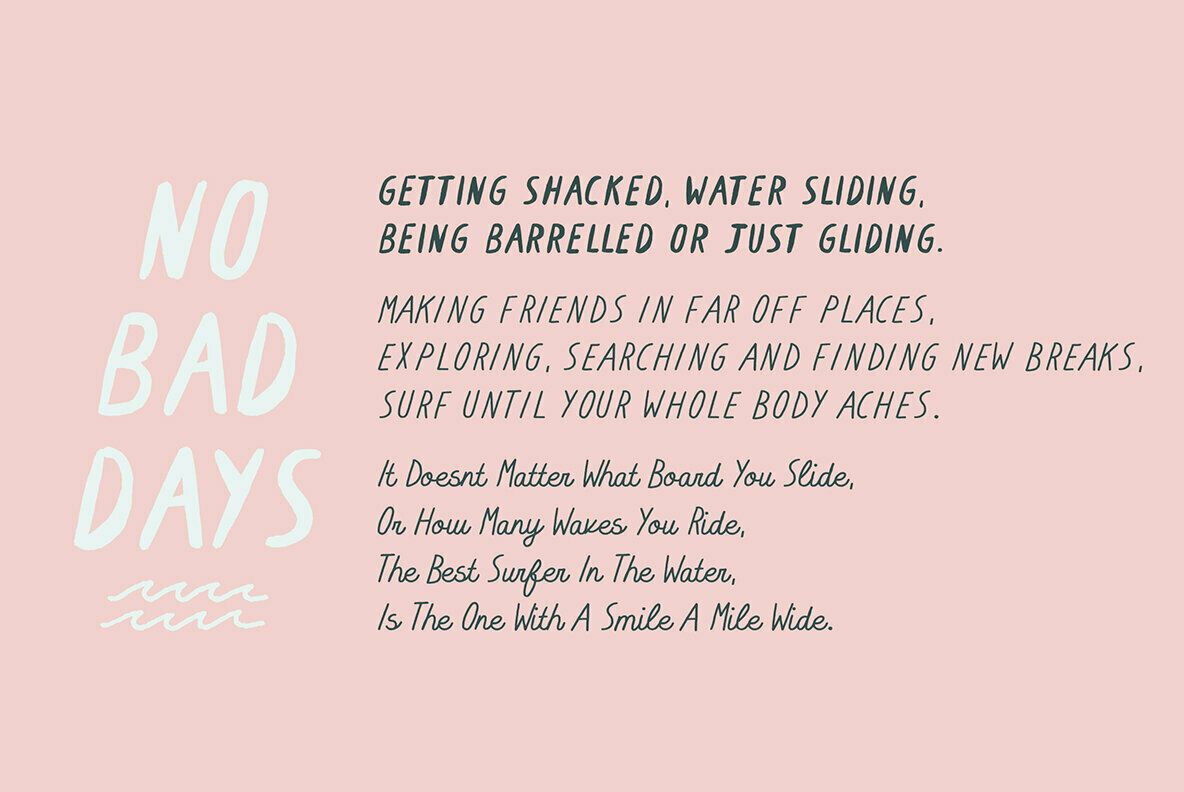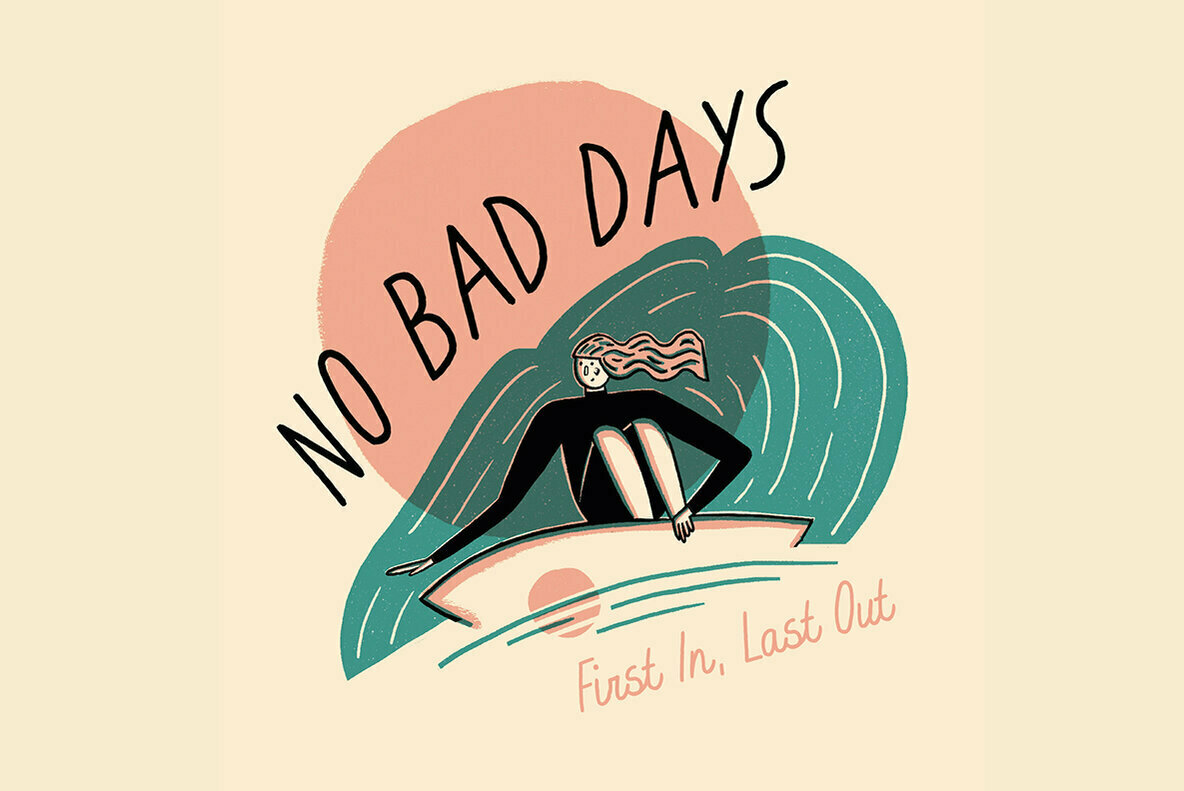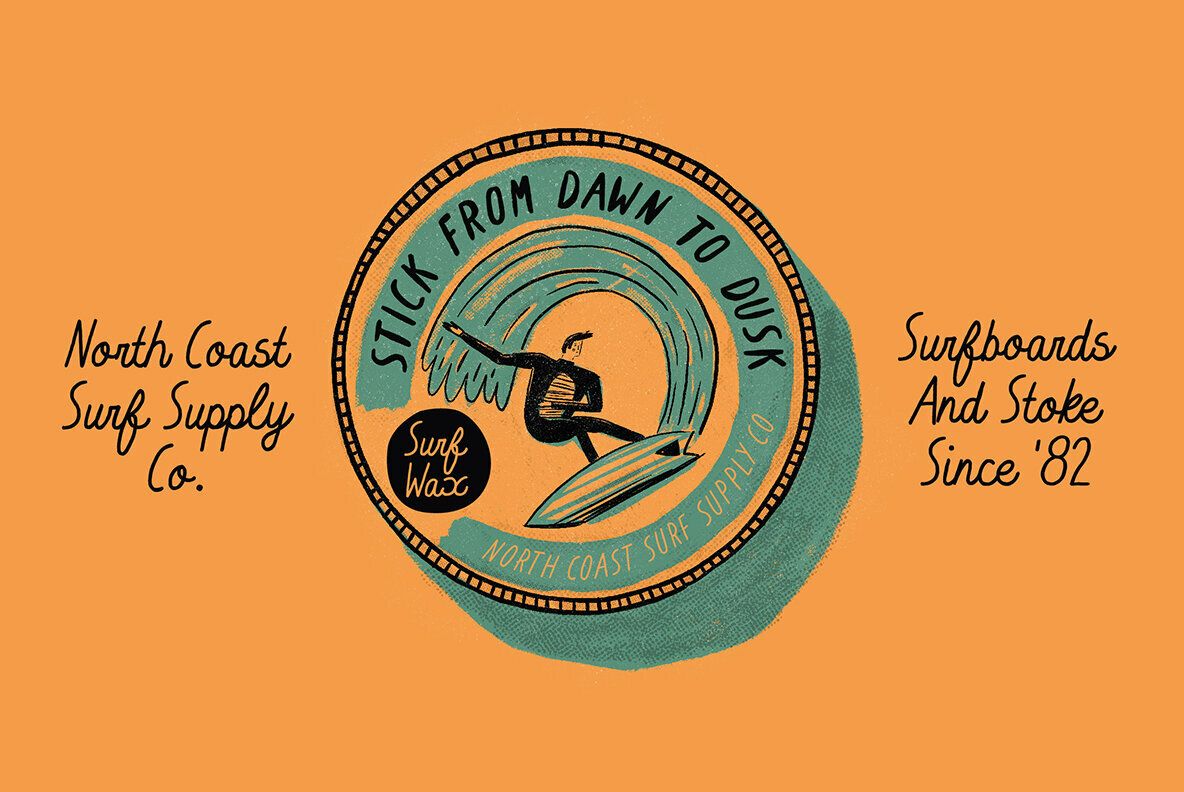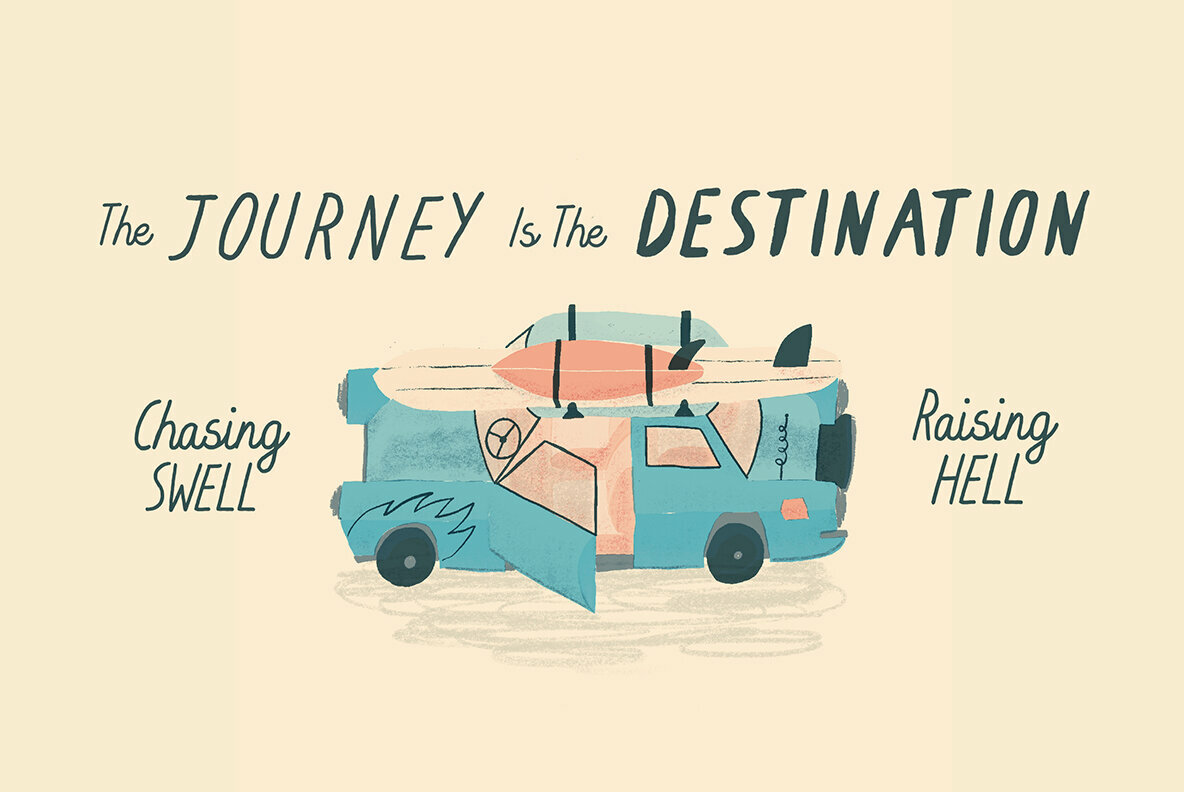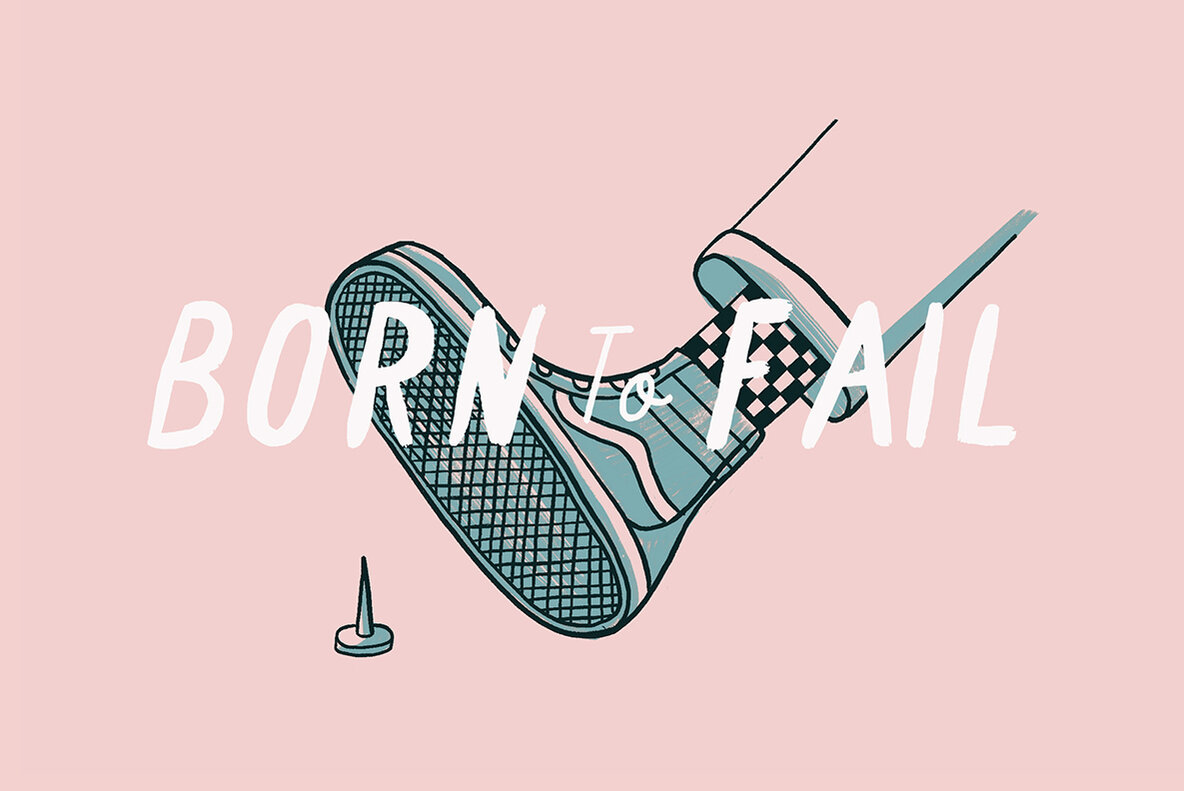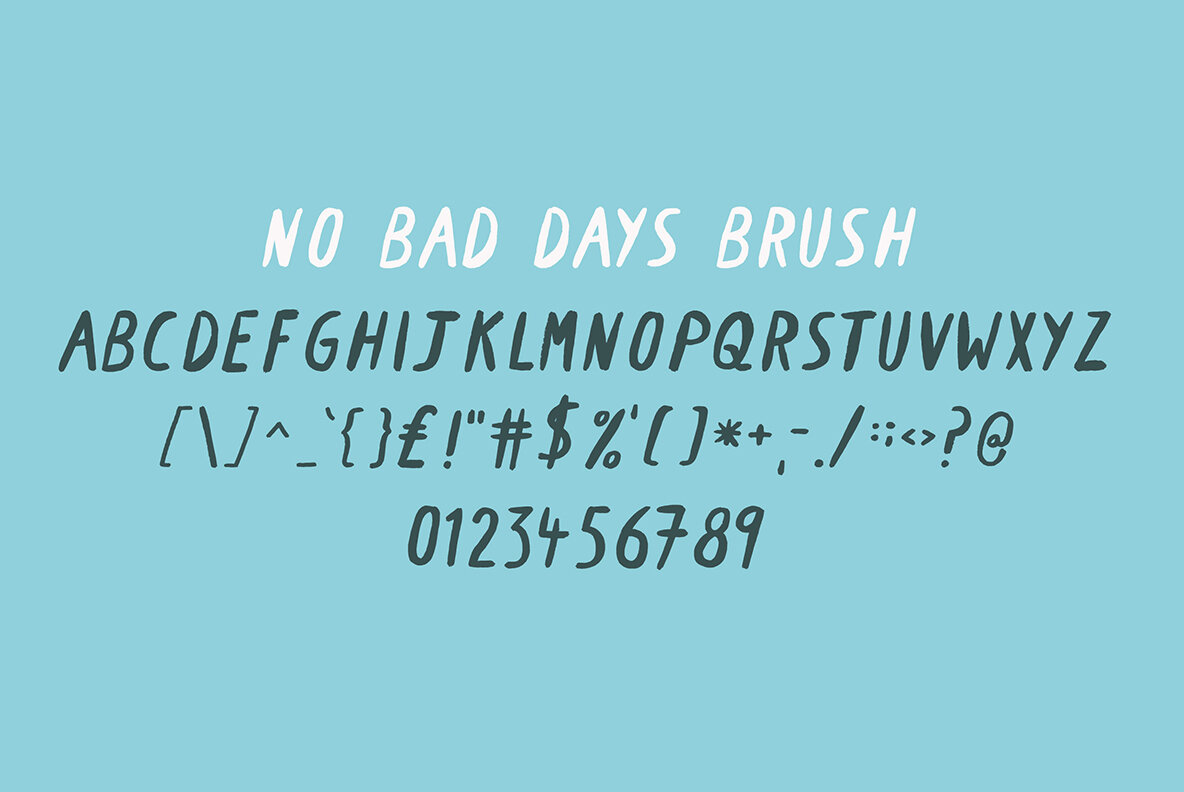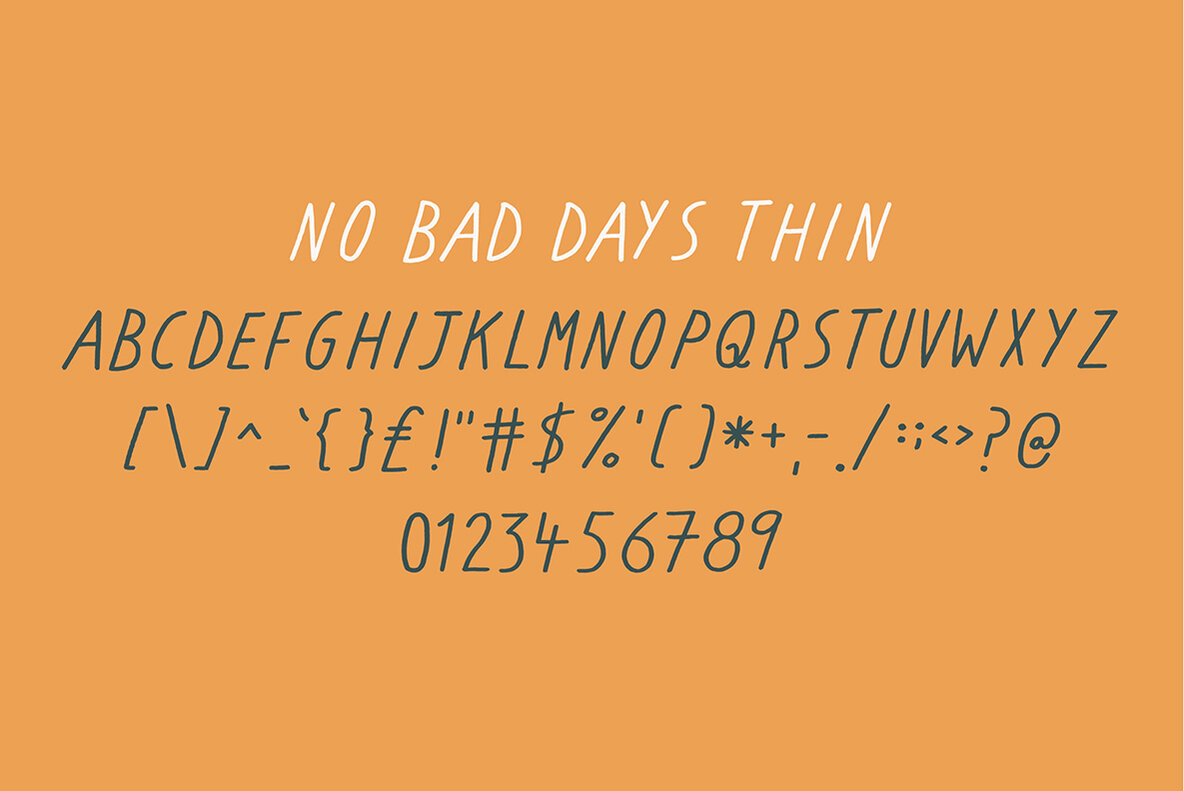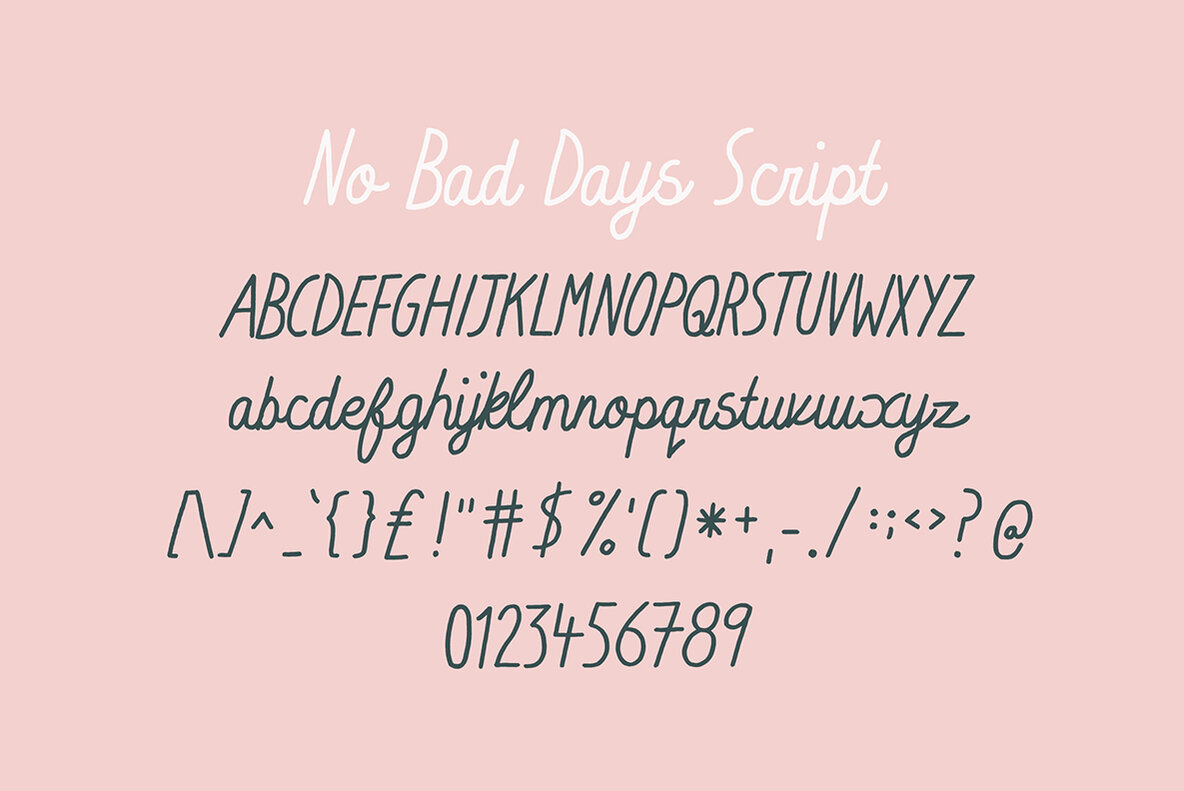
No Bad Days Font
The "No Bad Days" typeface from Jonathan Storey's collection offers a unique blend of creativity and playfulness. Created with an artistic touch, this type pack brings a casual, hand-drawn feel to your graphic design projects. Its authenticity makes it well-suited for a range of uses, from editorial design to branding for the modern creative.No Bad Days: Hand-Drawn Typeface by Jonathan Storey